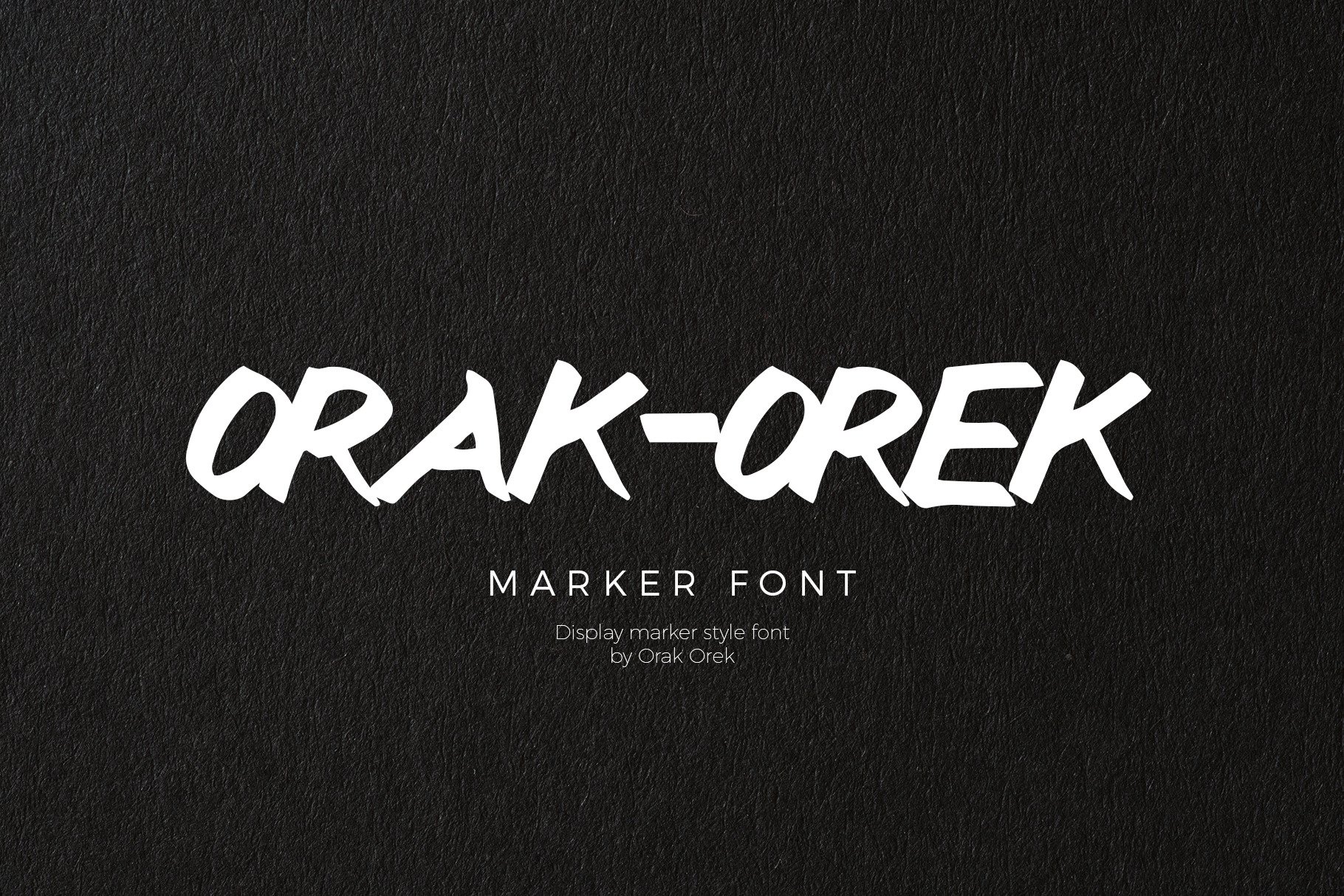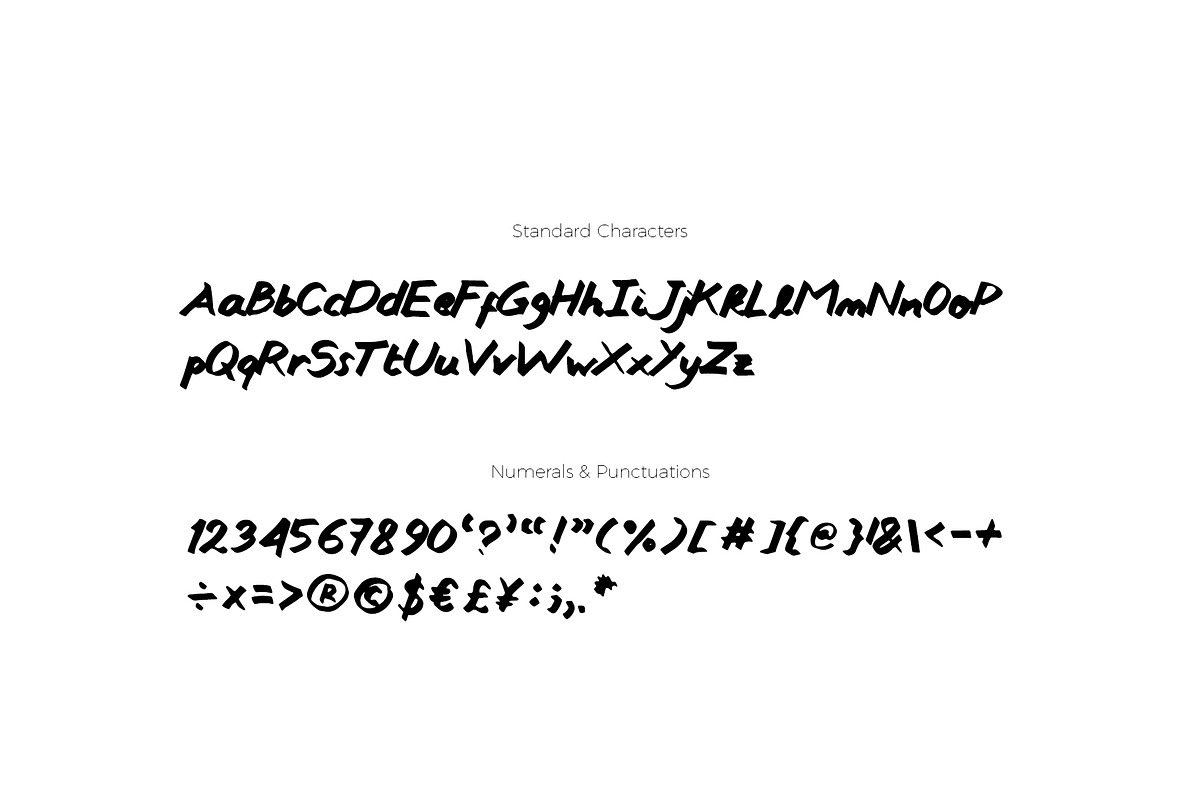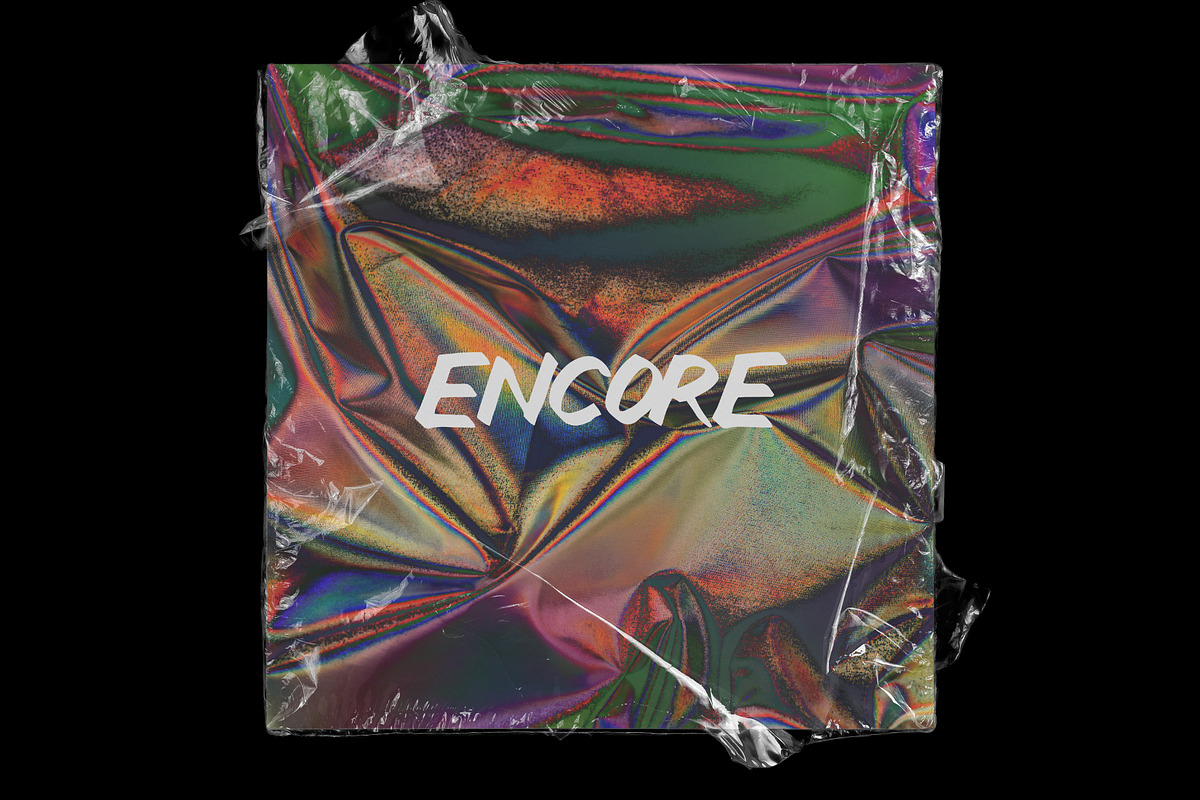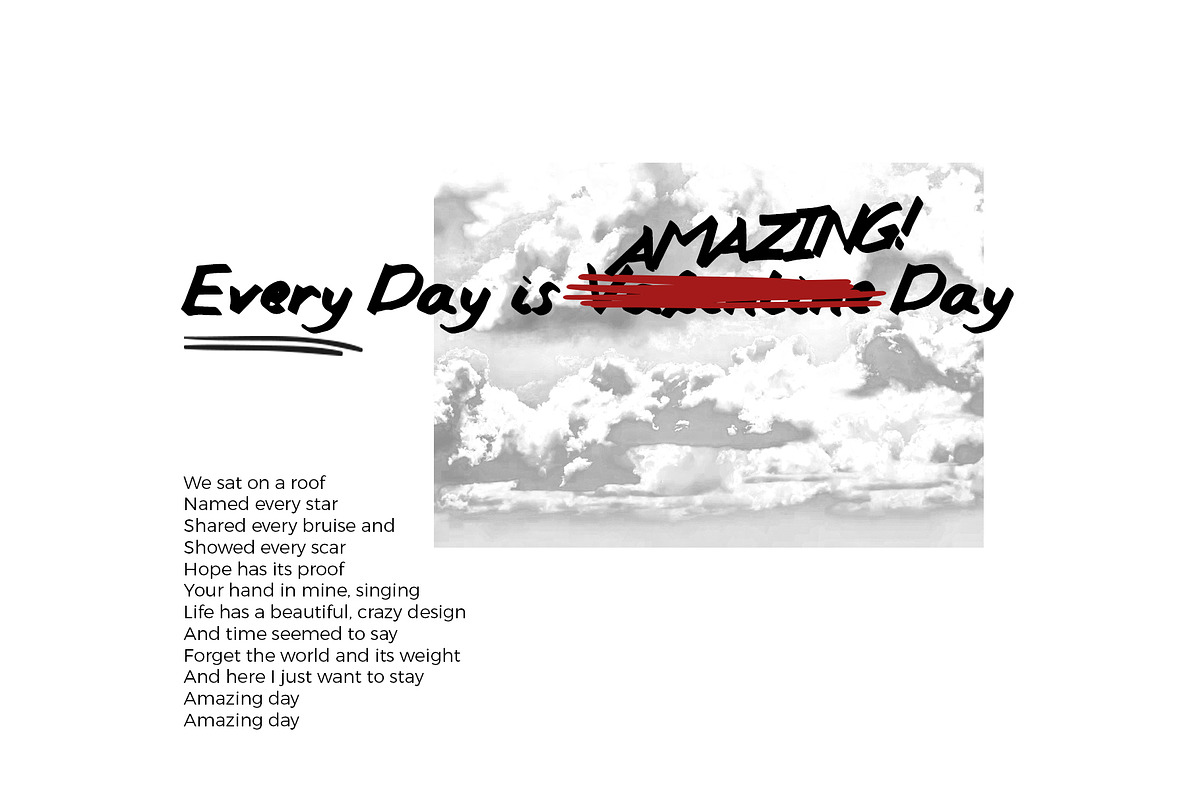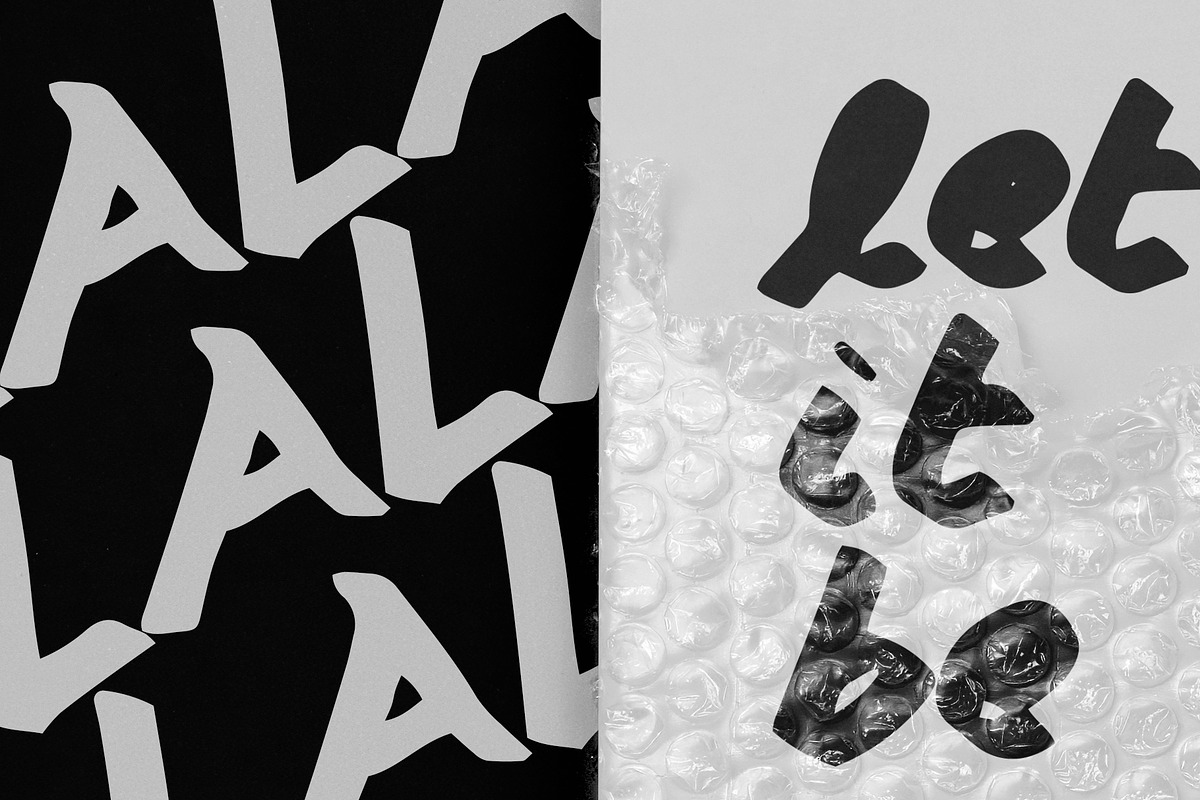
Orak-Orek Marker Font
Orak-Orek Marker Font is a marker handwritten font that is suitable for loud, dynamic, bold and casual brands, promotion, product packaging, and other needs. The font is specially made by and for our brand, Orak-Orek! and now we share it with all of you!
You will get a full set of lowercase and uppercase letters, numerals and punctuation, even multilingual symbols.